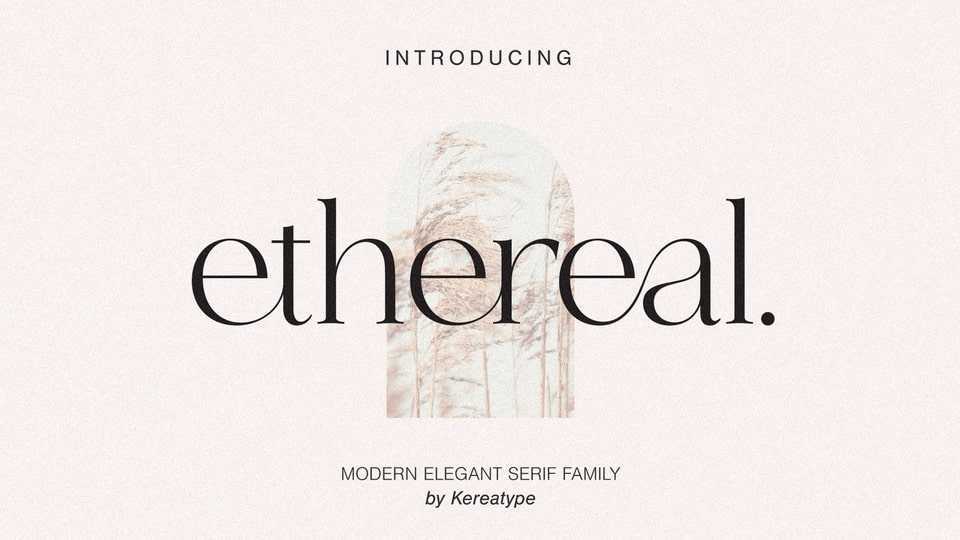
Download Ethereal font, a fashionable and elegant serif typeface with some sexy stylish extras:) Ethereal is suitable for logo, branding, editorial use, greeting and wedding cards, quotes, art typography and so on.
Designer: Kereatype Studio